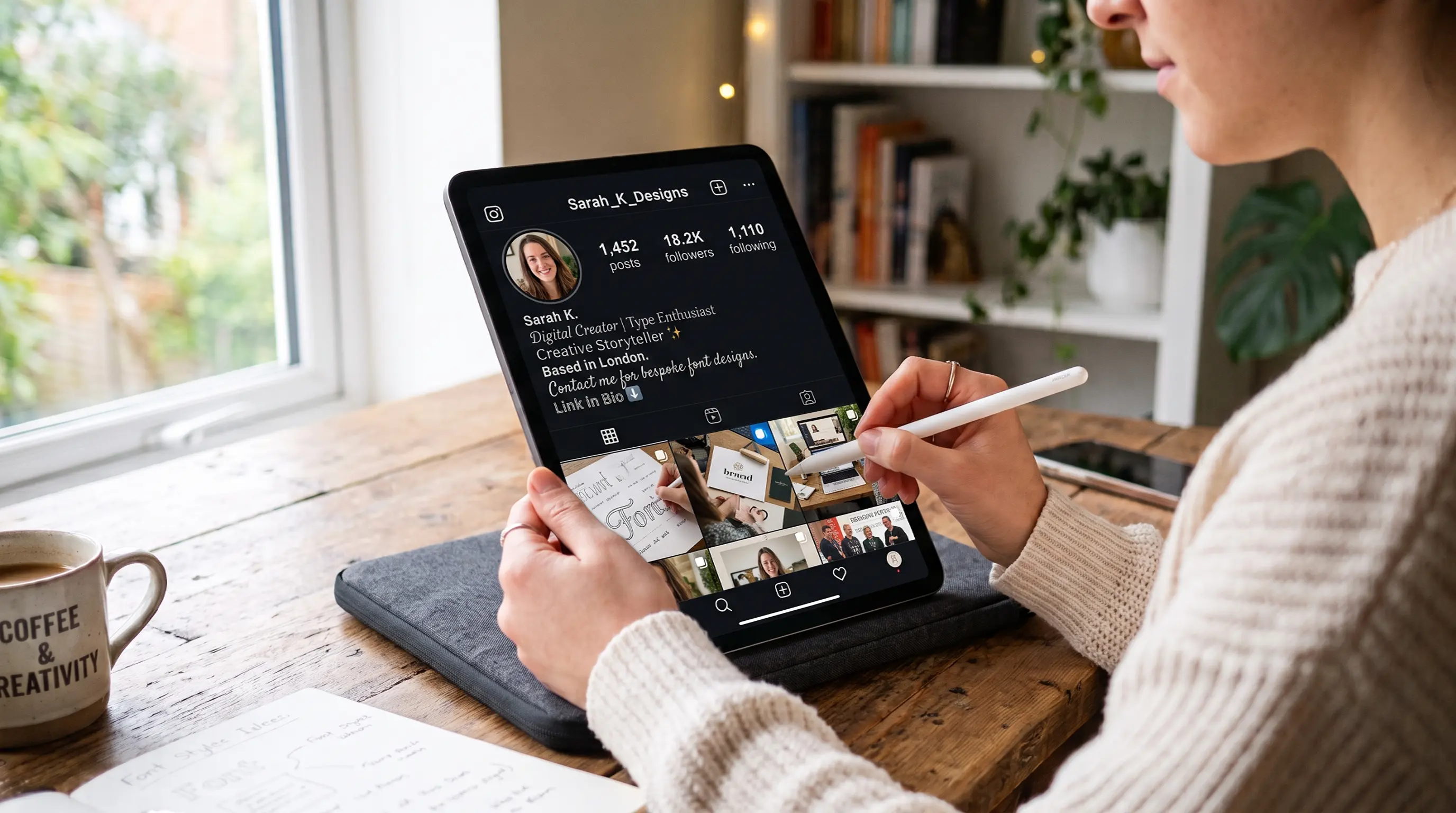
Instagram Font Style Generator
Create cool, aesthetic, and fancy text styles for your Instagram Bio, Captions, and Stories instantly.
What is the Instagram Font Style Generator?
The Instagram Font Style Generator is a free online font generator that converts standard text into creative Unicode font variations. This allows you to stand out from the crowd and add personality to your Instagram profiles, bios, captions, stories, and comments. You can choose from cursive, bold, double-struck, gothic, and decorative designs with just one click to copy.
How to Change Fonts on Your Instagram Bio & Profile
Customizing your Instagram profile with elegant scripts, bold letters, or text decorations is a fantastic way to capture the attention of profile visitors. Follow these simple steps to update your profile details:
The History & Evolution of Unicode & Digital Typography
Before the establishment of modern web layouts, internet users relied on simple ASCII characters to construct text-art or custom profiles on early messaging platforms like IRC, AOL Instant Messenger, and MSN Messenger. The introduction of the global Unicode standard in the 1990s revolutionized communication by registering code points for scripts around the world. Crucially, Unicode developers introduced the Mathematical Alphanumeric Symbols block (ranging from U+1D400 to U+1D7FF). Originally intended to allow mathematicians and research physicists to represent formulas, constants, and equations in scientific papers, these block sets were eventually co-opted by creative social media users to style captions and bios online, bypass native formatting constraints, and stand out in digital crowds.
Tips for Creating High-Engagement Profiles & Bios
When styling your profile, keeping a balance between aesthetic appeal and readability is key. Here are some tips to design a layout that keeps followers engaged:
- Ensure Main Titles are Legible: Make sure your name and main credentials can be read quickly by anyone visiting your profile. Use clear bold or serif fonts for name callouts.
- Highlight Key Call-to-Actions: Bold fonts are highly effective at guiding the reader's eye. Style callouts like 👉 LINK IN BIO or 🚨 GIVEAWAY to ensure your link destinations get noticed.
- Limit Font Mixtures: Using more than two font styles in a single bio can look cluttered. Pair a bold style with a clean cursive or monospace font to keep details structured and clean.
Accessibility & Screen Reader Guidelines for Social Media
Screen readers translate screen content into audio speech for visually impaired users. Because fancy text characters are mathematical symbols rather than standard letters, screen readers read them aloud according to their mathematical name (for example, "Math Bold Capital A, Math Bold Small B" instead of "Ab"). To ensure your content remains accessible to all potential followers, keep paragraph updates and long explanations in standard plain text. Use Unicode fonts selectively for highlights, names, or single-word subtitles.
How to Revert Unicode Fonts Back to Plain Text
If you copy styled text from someone's profile and want to restore it to plain text, you do not need to rewrite it by hand. Simply paste the text back into our input field at the top of the page. The generator detects the Unicode blocks and maps them back to their standard Latin alphanumeric equivalents, giving you standard text instantly.
Older mobile operating systems or outdated browsers may not have the updated Unicode font maps installed. Most modern smartphones fully support these characters.
We recommend sticking to one or two font styles at most. Overcrowding your bio with multiple decorative styles can make it difficult to read.
No, screen-reader software read Unicode symbols as mathematical blocks. Avoid writing full paragraphs in styled text to remain accessible.